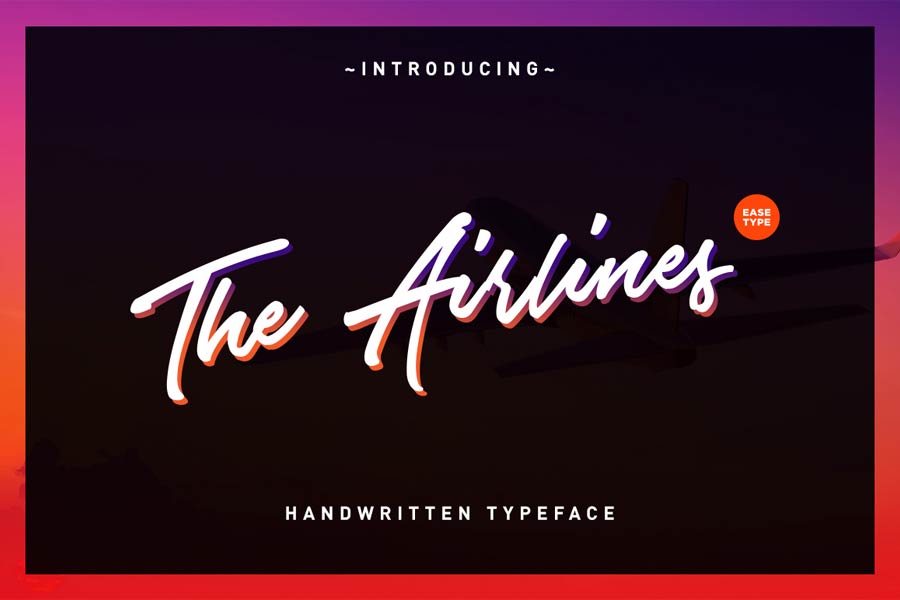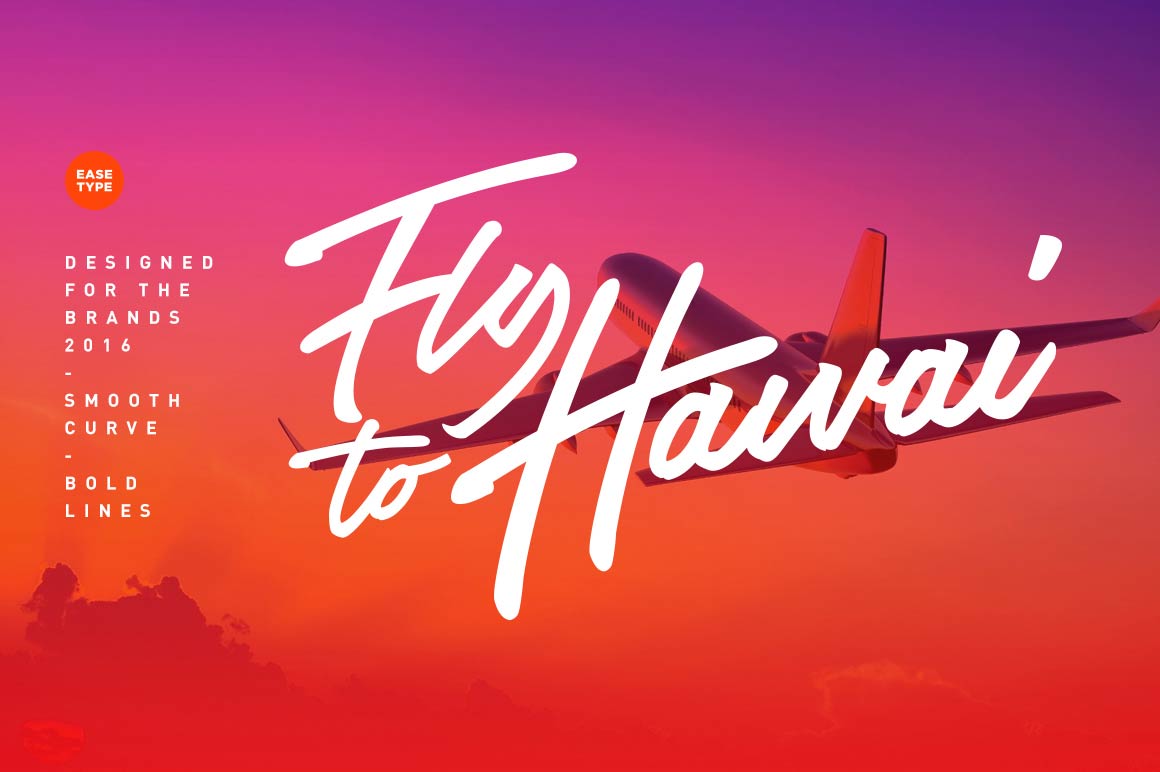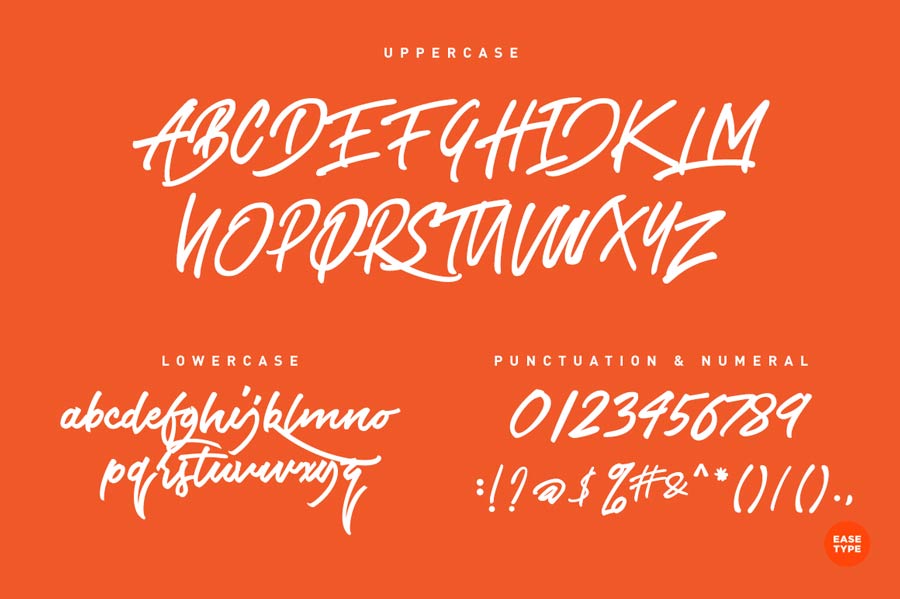
The Airlines is a free demo font that was designed in branding in mind. This hand-lettered font features smooth strokes with slight slant towards the right side and is perfect for logo design, packaging, t-shirt or any promotional designs for big displays. This is a demo font so you can only use this for own usage.
- Designer: Firman Suci Ananda
- Category: Display, Handwriting